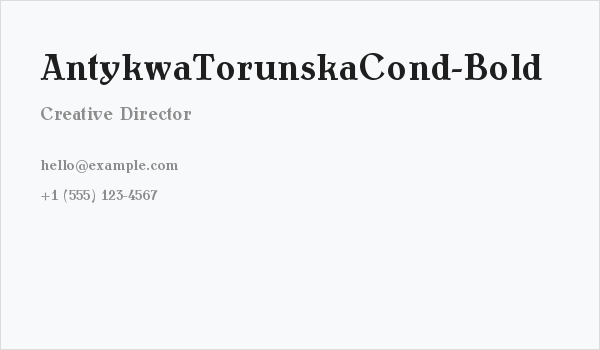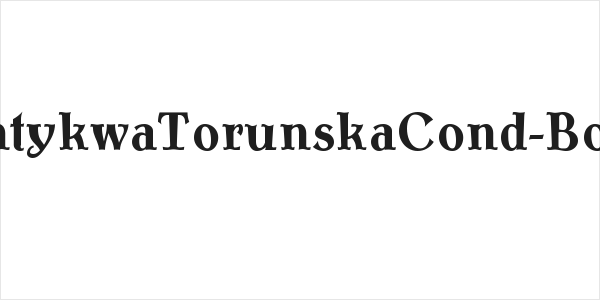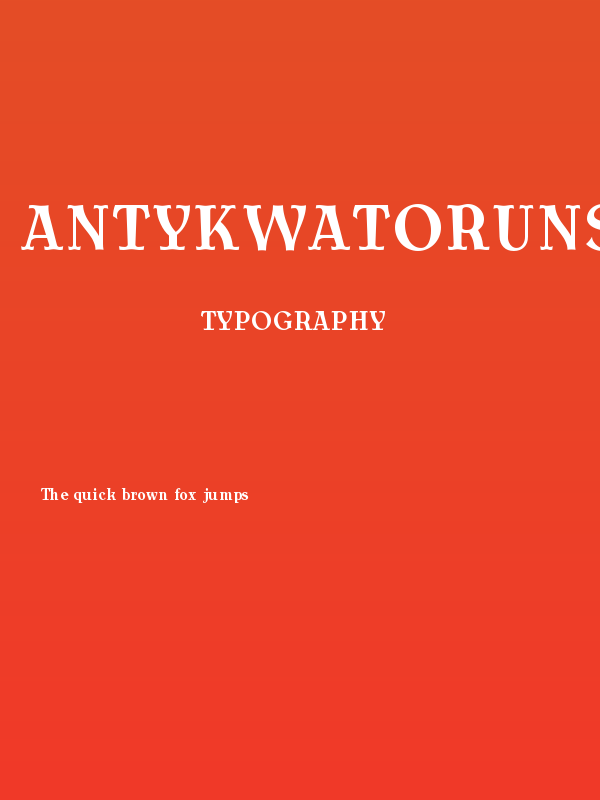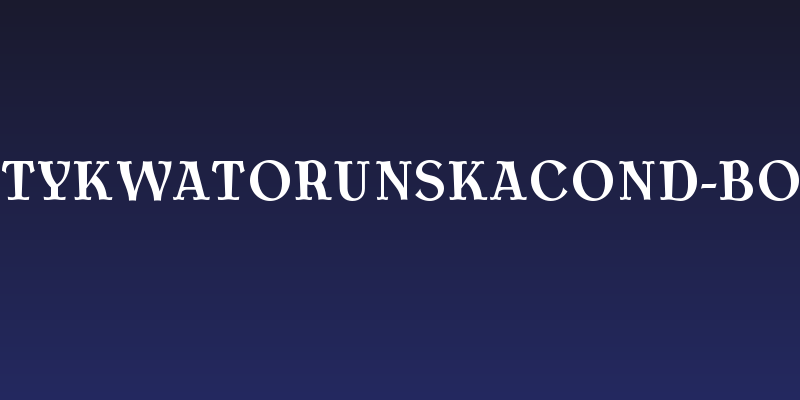
AntykwaTorunskaCond-Bold Font
AntykwaTorunskaCond-Bold Description
This font features a classic serif style with a bold and condensed appearance. The characters are well-defined, with strong vertical strokes and slightly curved serifs that add a touch of elegance. The uppercase letters are robust and commanding, while the lowercase letters maintain a consistent weight, providing a harmonious balance. The numerals are distinct and easy to read, making them suitable for various applications. Special characters are designed with the same attention to detail, ensuring they integrate seamlessly with the rest of the font. Overall, this font exudes a sense of tradition and authority, making it ideal for formal and professional uses.